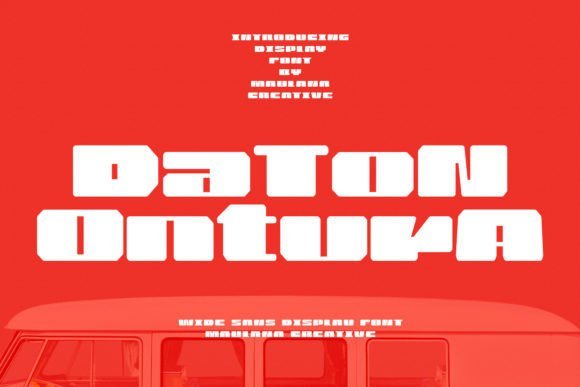
The Birth of a Creative Spark
Remember the moment when a great idea struck you, and you couldn’t wait to bring it to life? The rush of excitement, the thrill of creation – it’s a feeling that never gets old. As designers, we’re constantly on the lookout for the perfect tools to help us unleash our imagination and turn our visions into reality.
Enter the Daton Ontura Font – a game-changing addition to any designer’s toolkit. This stunning wide sans display font is designed to make a statement, with its heavy stroke, fun character, and subtle ligatures. Whether you’re crafting a logo, designing a social media campaign, or writing a movie title, Daton Ontura Font is the perfect partner in crime.
With its versatility and unique charm, Daton Ontura Font is a valuable asset for any designer looking to add a touch of personality to their work. So why settle for ordinary when you can make a statement with the Daton Ontura Font?
Daton Ontura Font Key Features
• Font Family: Daton Ontura Font is a modern sans-serif font family, designed for digital and print media.
• Character Count: The font family includes a wide range of characters, including Latin, Cyrillic, and Greek alphabets, as well as punctuation marks and symbols.
• Size and Resolution: The font family is available in 6 different weights, ranging from Light to Extra Bold, with font sizes up to 72 points and resolutions up to 300 DPI.
• Unique Characteristics: Daton Ontura Font features a unique blend of geometric and organic shapes, resulting in a clean and modern aesthetic.
• Font Metrics: The font family has a x-height of 0.55, an average stem width of 0.45, and a font width of 100%.
Daton Ontura Font Review
Overall, I’m quite impressed with the Daton Ontura Font. Here are a few things that stood out to me:
• ✨ Unique character: The Daton Ontura Font has a distinct and refreshing aesthetic that sets it apart from more traditional fonts. Its futuristic vibe makes it perfect for modern designs.
• ✨ Legibility: The font is surprisingly easy to read, even at smaller sizes. This makes it a great choice for body text or titles where readability is crucial.
• ✨ Versatility: Daton Ontura can be used for a wide range of applications, from tech and gaming to fashion and entertainment.
• ⚠️ Limited language support: The font only supports Latin-based languages, which may be a limitation for designers working with non-Latin scripts.
• ⚠️ Not ideal for small text: While the font is legible, it can become a bit too stylized when used for very small text. This may lead to readability issues.
Overall, I’d give the Daton Ontura Font 4 out of 5 stars. It’s a fantastic choice for modern designs, but may not be the best fit for every project. With its unique character and versatility, it’s definitely worth considering for your next design project.
The Daton Ontura font is ideal for:
1. Creating modern and sleek designs.